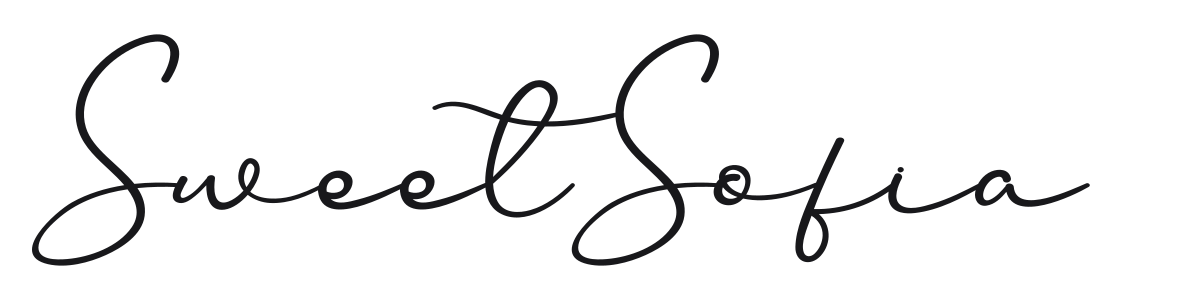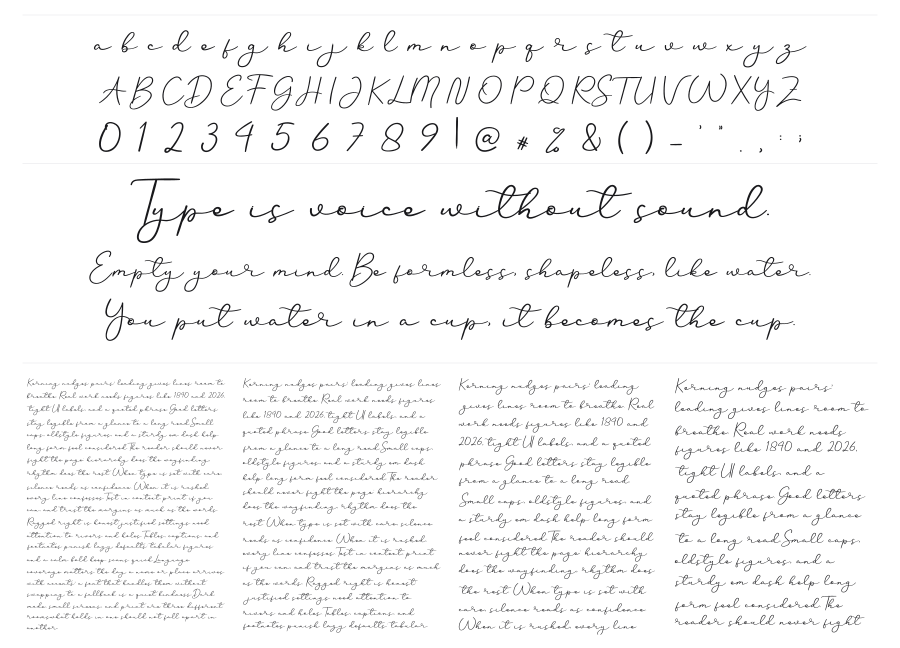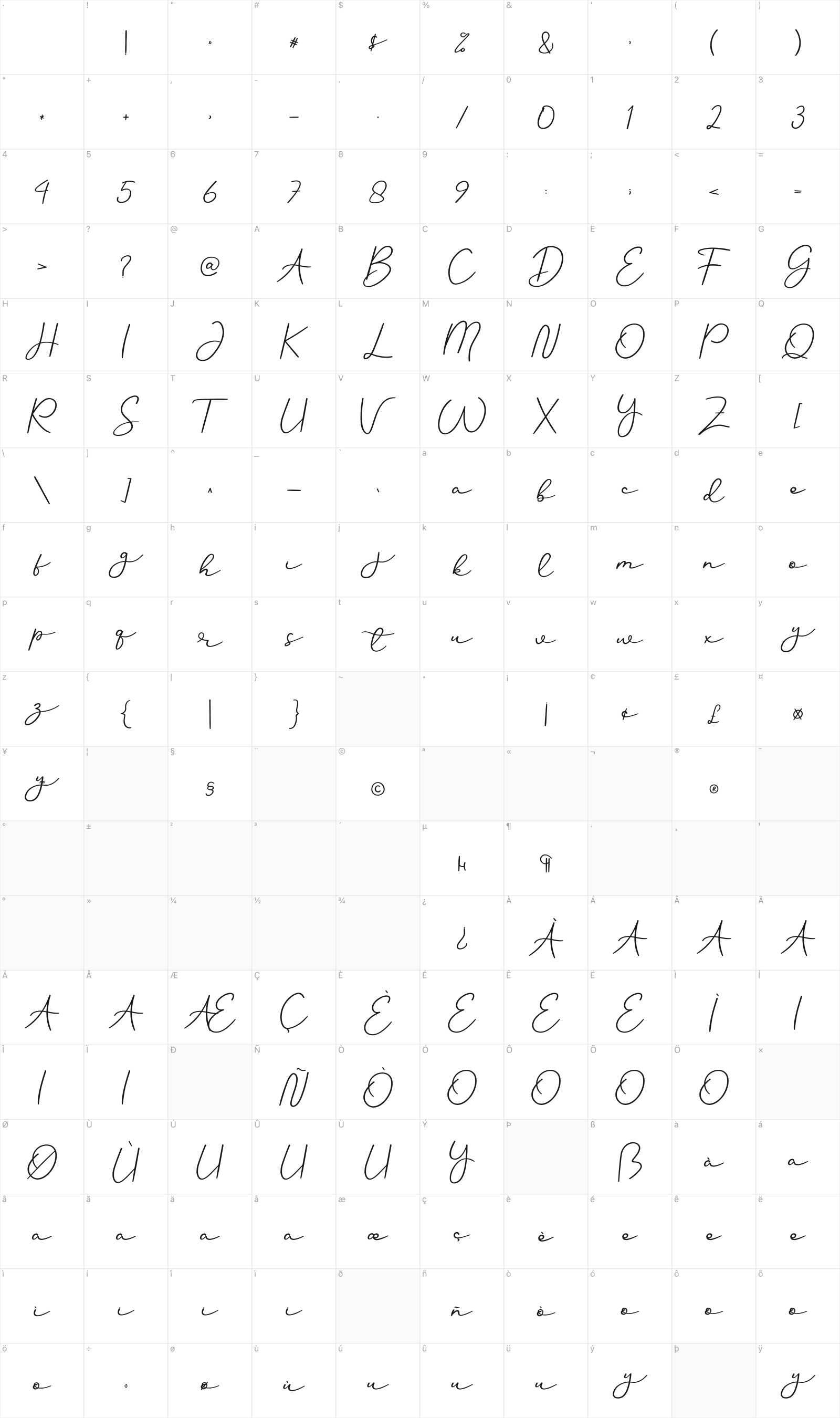
Sweet Sofia
Sweet Sofia is a flowing casual script with a light, airy touch and a naturally bouncing baseline. The thin connected strokes and looping extensions give it an effortless handwritten quality that feels both romantic and approachable. It suits wedding stationery, boutique branding, and editorial headlines where a personal, feminine tone is the goal.